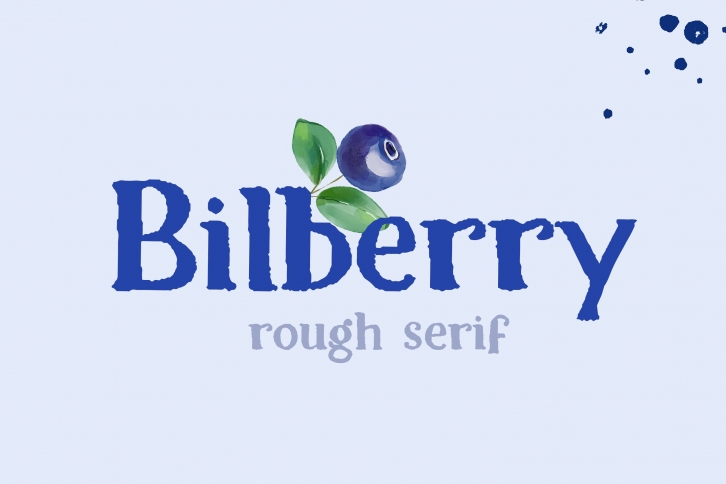
Bilberry is a cool and rough textured serif font. No matter the topic, this font will be an incredible asset to your fonts’ library, as it has the potential to elevate any creation.